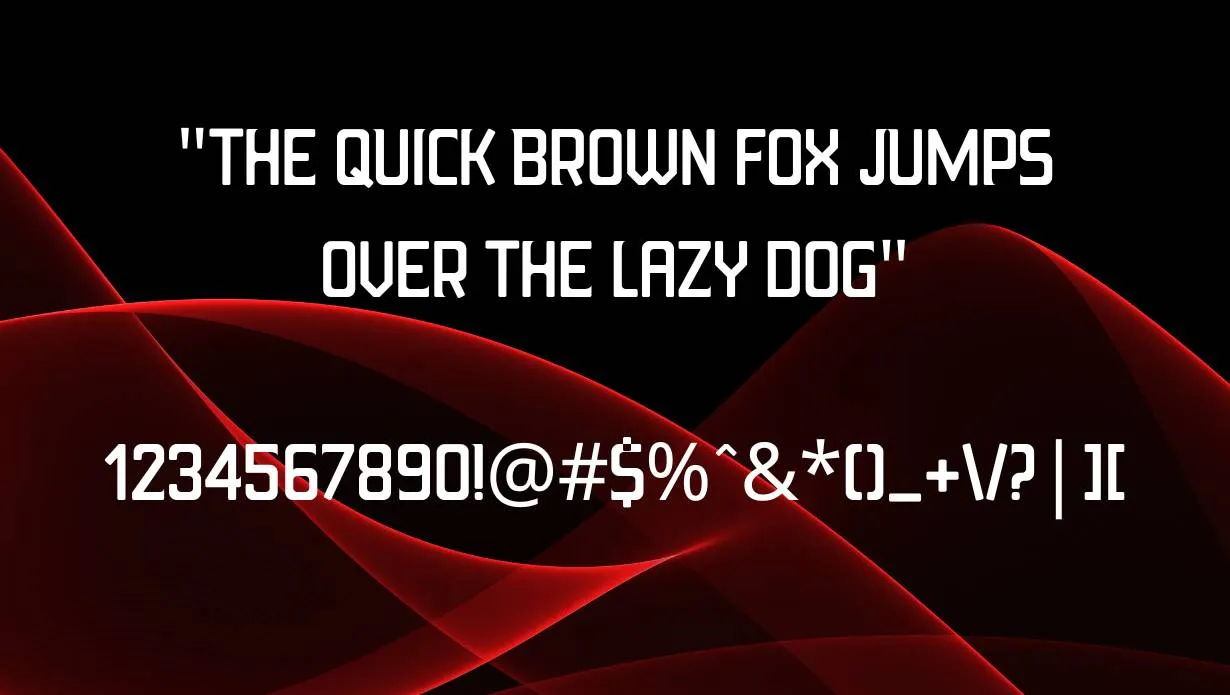
Foxy Font draws inspiration from the natural world and is commonly utilized in projects that focus on the wilderness, wildlife, and nature-inspired designs.
| Name | Foxy Font |
| Designer | Inari Jardani Fraton |